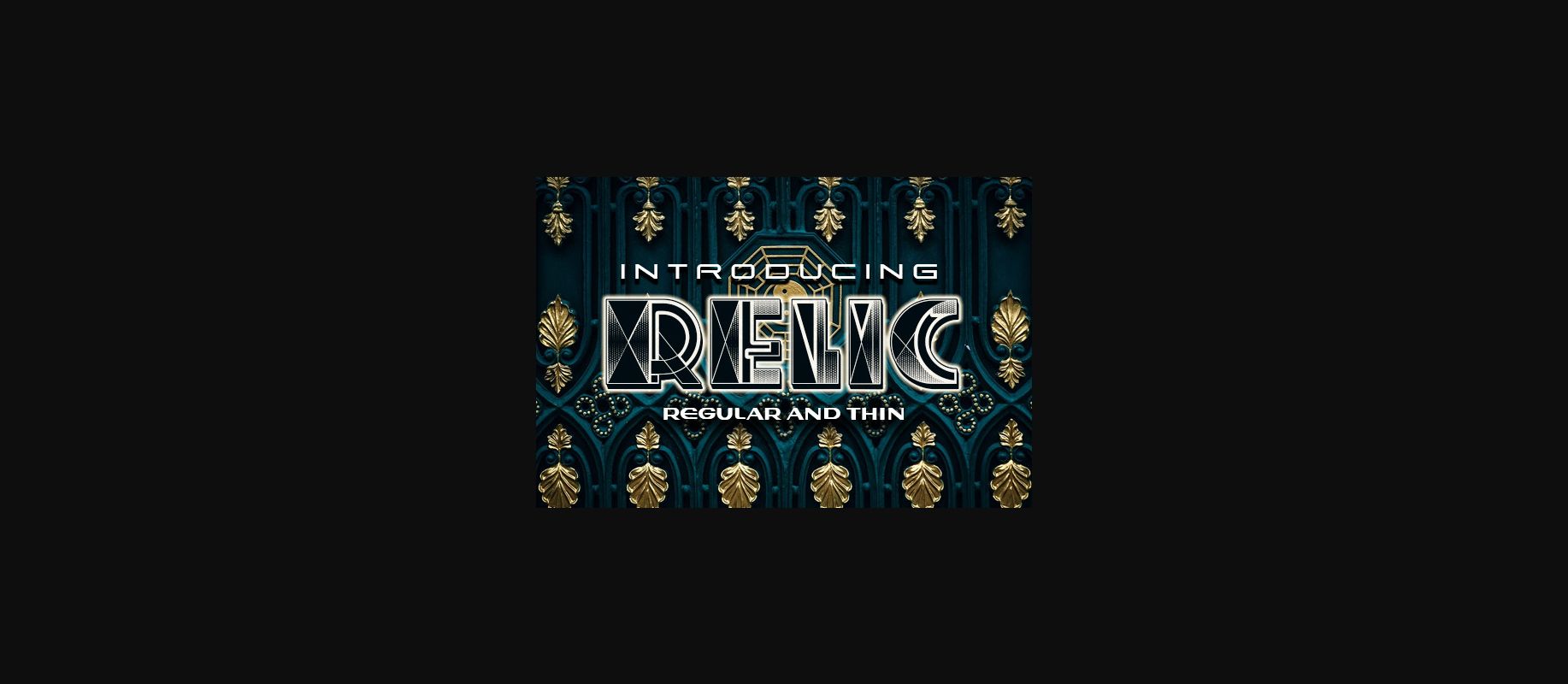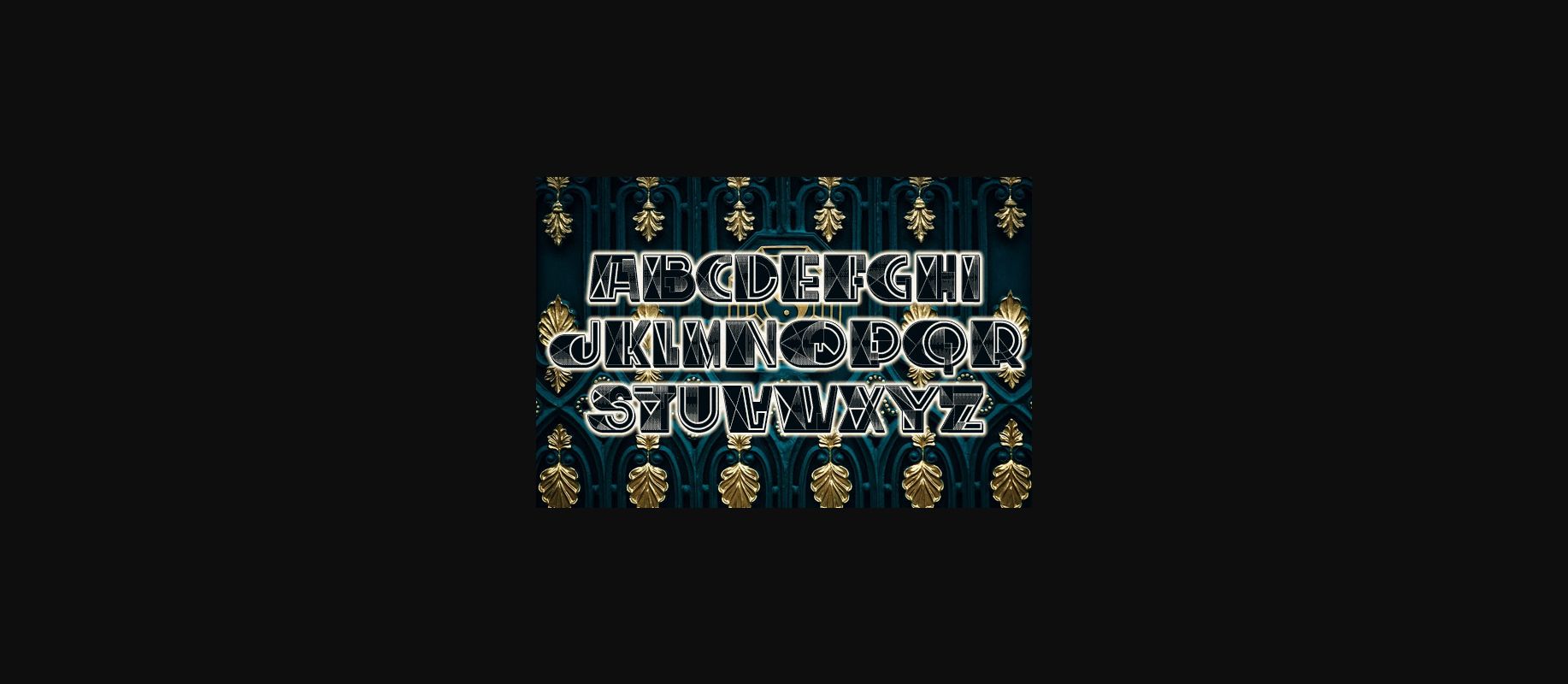
About Relic Font
Relic is an awesome decorative typeface that will take your designs to the next level. Use this font on t-shirts, banners, and postcards.